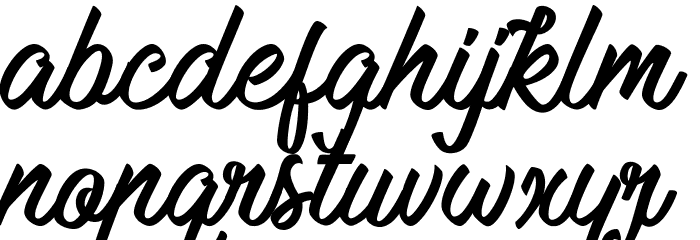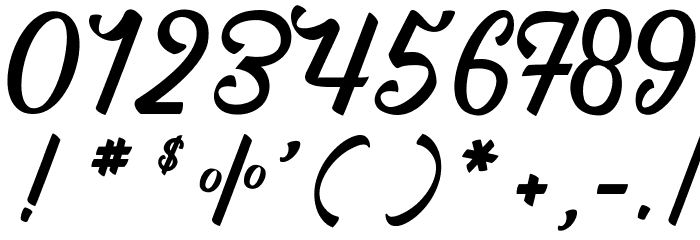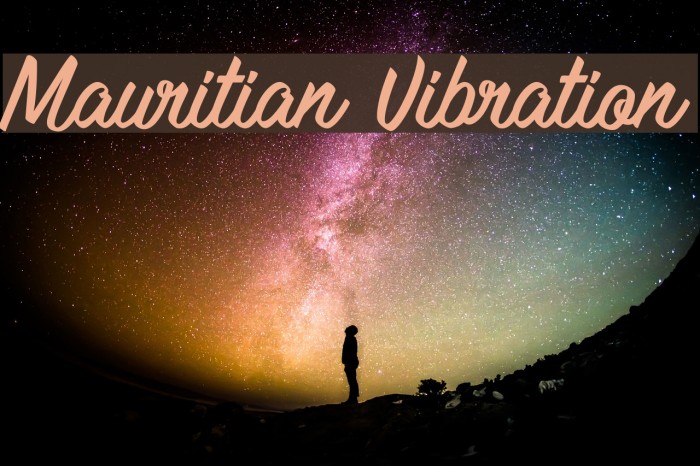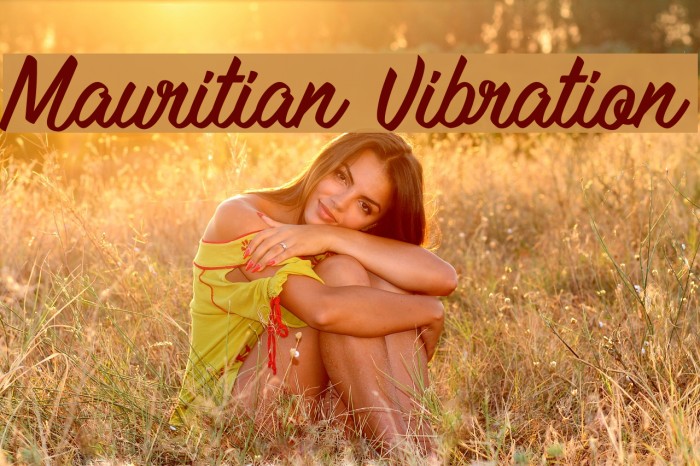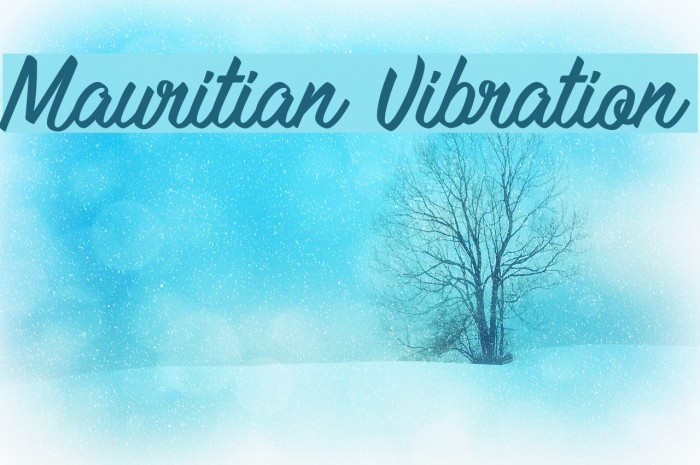
Mauritian Vibration Font
This font features a bold, cursive style with a flowing, handwritten appearance. The letters are connected, giving it a smooth and continuous look. The uppercase letters are elegantly styled with sweeping curves and loops, while the lowercase letters maintain a consistent flow. The numerals are distinct yet harmonize with the overall script style. Special characters are designed to match the fluidity of the letters, making them suitable for decorative purposes. The font's boldness ensures it stands out, making it ideal for eye-catching designs.
A bold, cursive font with a flowing, handwritten style.
- Proposed Projects: Ideal for wedding invitations, greeting cards, logos, and branding materials that require a personal touch.
- Use Case: Logos, Headlines, Invitations